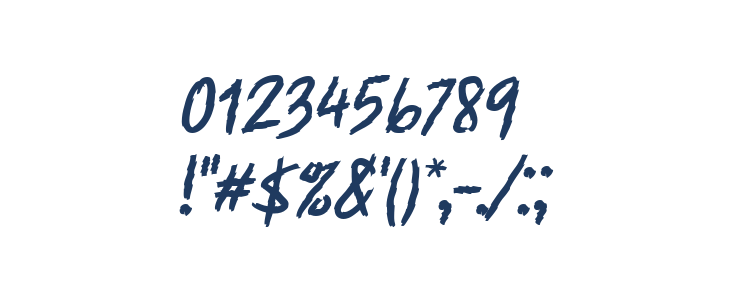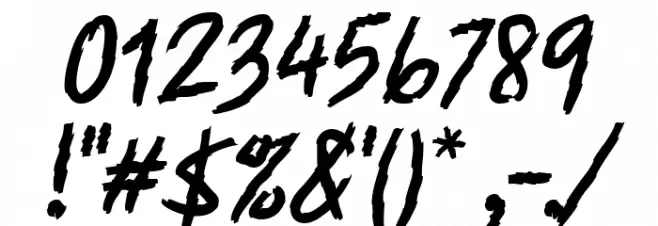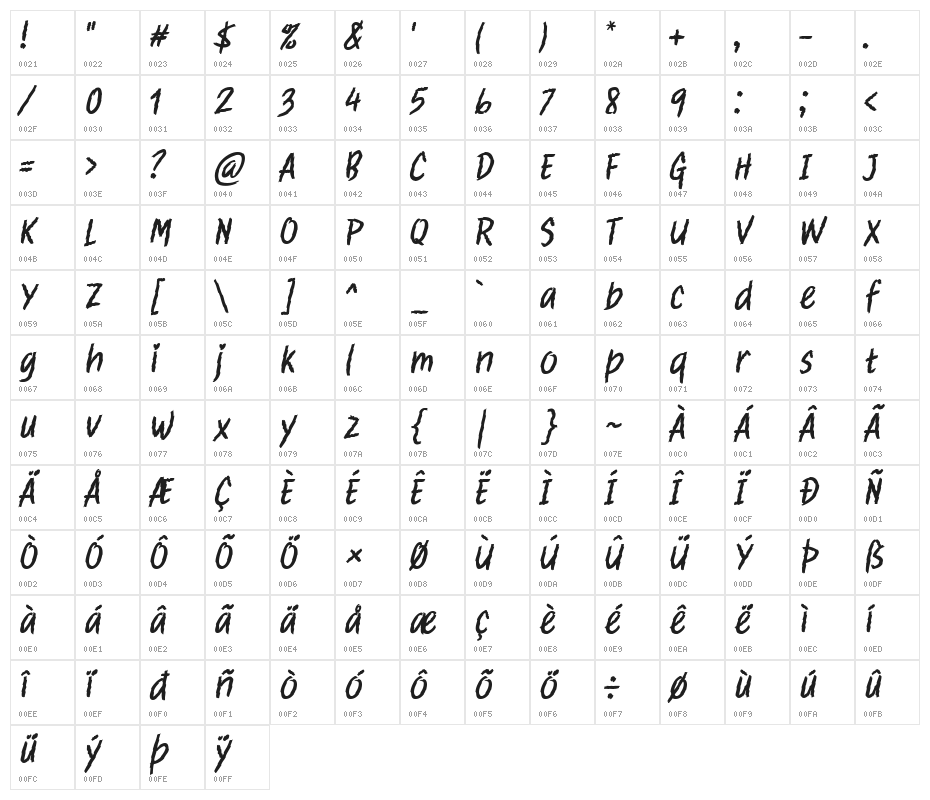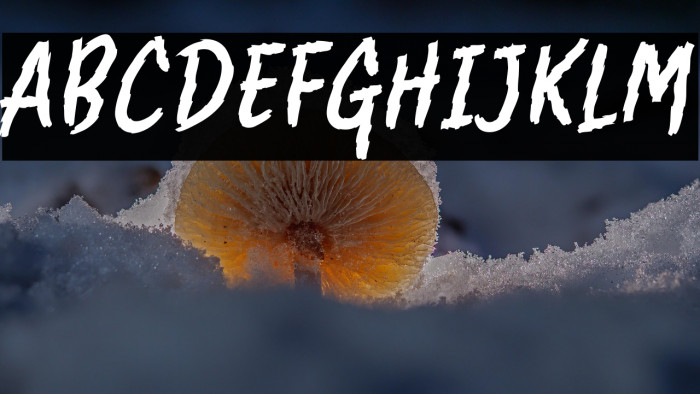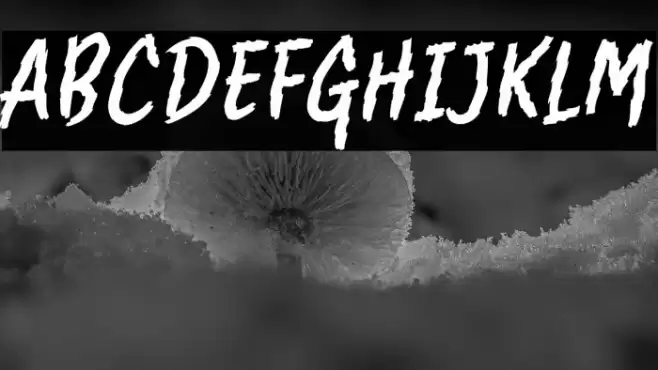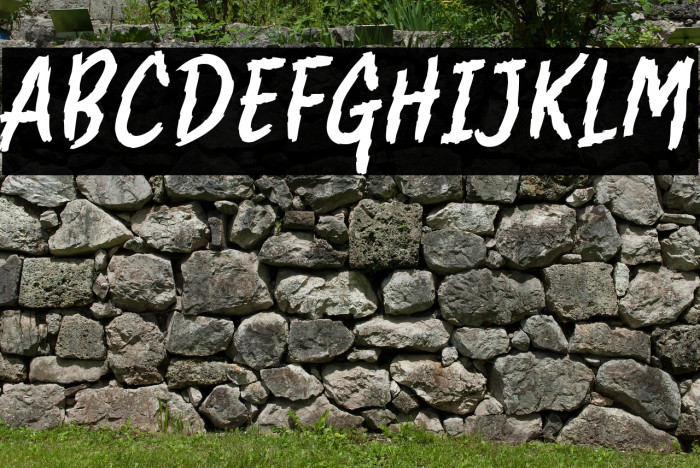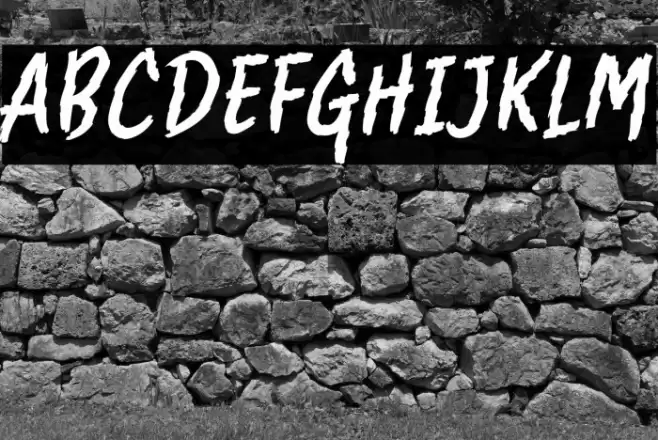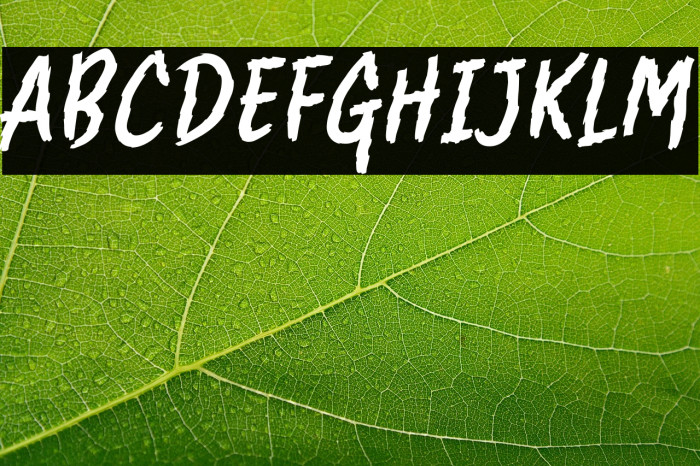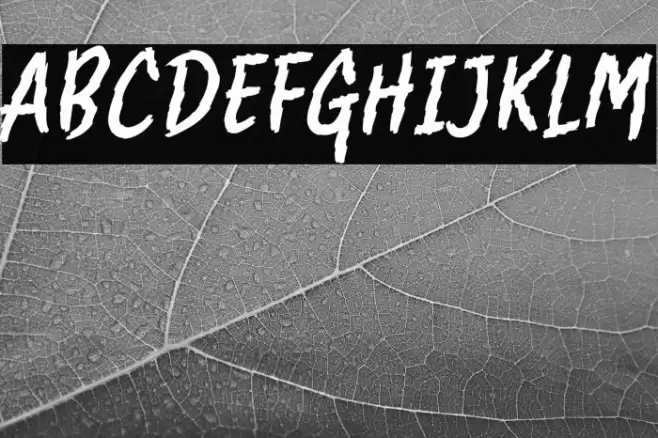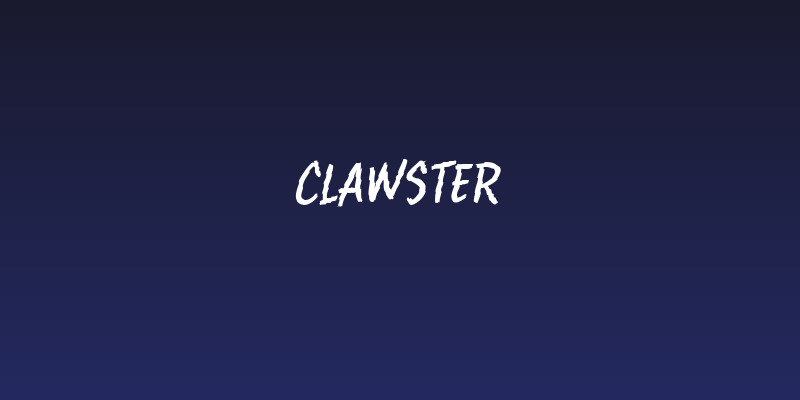
Clawster Font
Clawster Description
This font exudes a bold and dynamic presence with its brush-like strokes and energetic flow. The characters are crafted with a sense of movement, giving them a lively and expressive appearance. The uppercase letters stand tall and assertive, while the lowercase letters maintain a consistent rhythm that complements the overall style. Numbers and special characters are equally expressive, ensuring versatility across various applications. The font's unique texture and handcrafted feel make it ideal for projects that require a personal touch or artistic flair.
| Proposed Projects | Ideal for branding, posters, album covers, and creative projects that require a bold, artistic touch. |